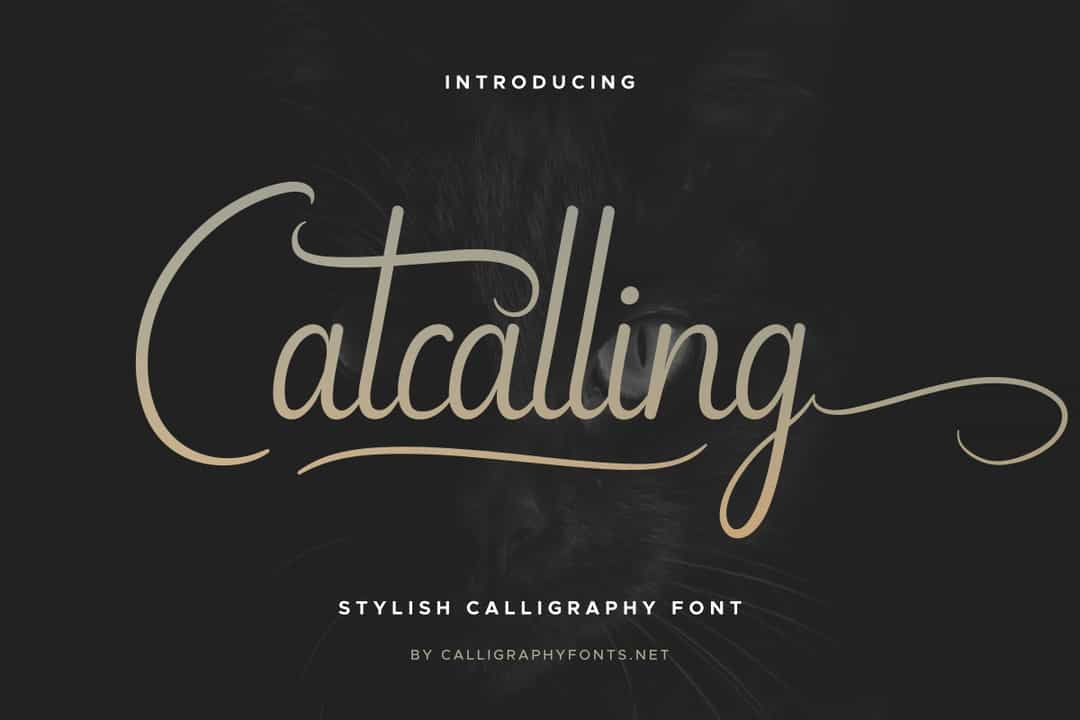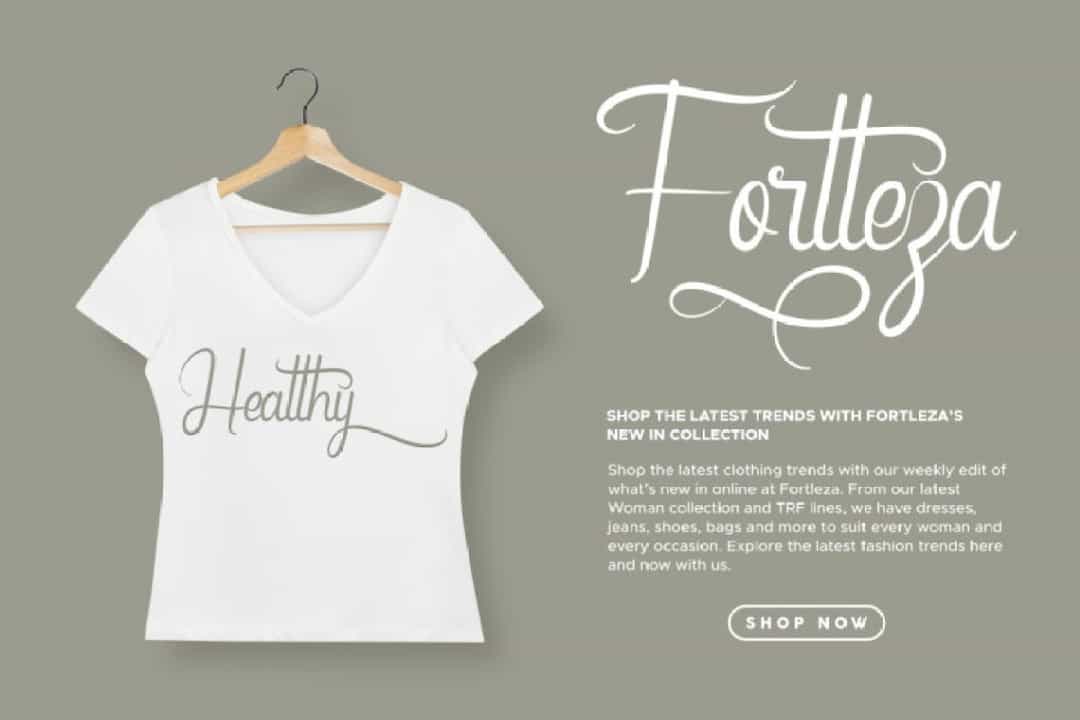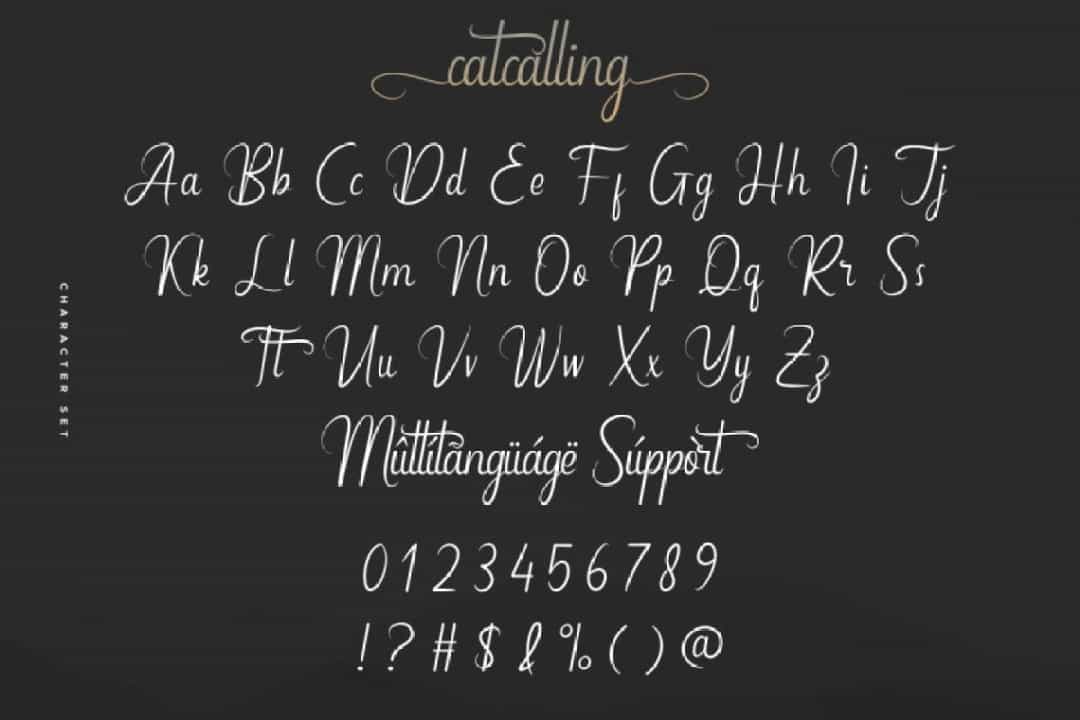
It is a calligraphy font with script-like calligraphy style with the characteristics of contemporary sophistication and glamour with the classic feel of catcalling.